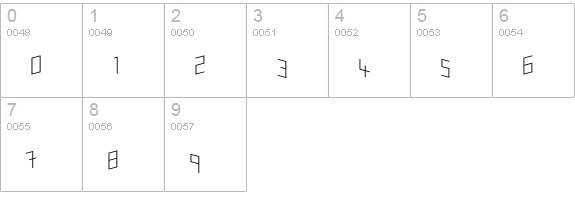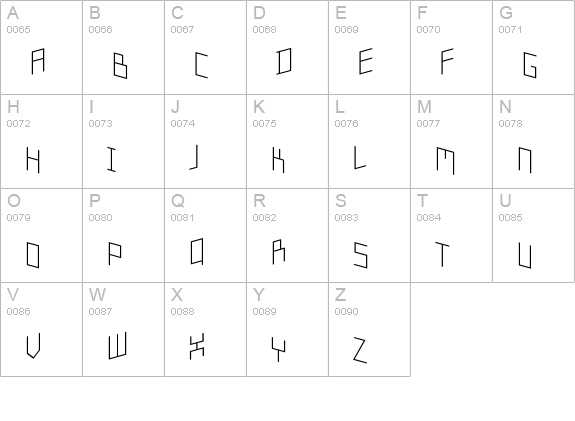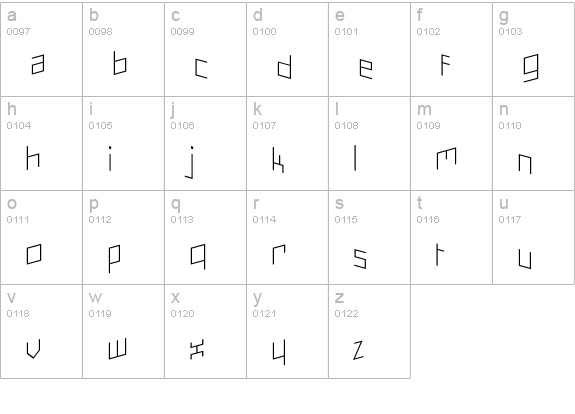
Introducing Minimum-BongClair font, a sleek and modern typeface that exudes elegance and sophistication. With its clean lines and minimalist design, this font is perfect for a wide range of design projects, from branding to editorial to web design. What sets Minimum-BongClair font apart is its versatility - it can be used for both headings and body text, making it a go-to choice for designers looking for a font that can do it all. The balanced letterforms and subtle details of this font make it a standout choice for those looking to add a touch of sophistication to their work. Best of all, Minimum-BongClair font is completely free to download at FontsMarket.com, making it accessible to designers of all skill levels. Whether you're a seasoned professional or just starting out, this font is sure to elevate your designs and help you stand out from the crowd. Download Minimum-BongClair font today and see the difference it can make in your projects.